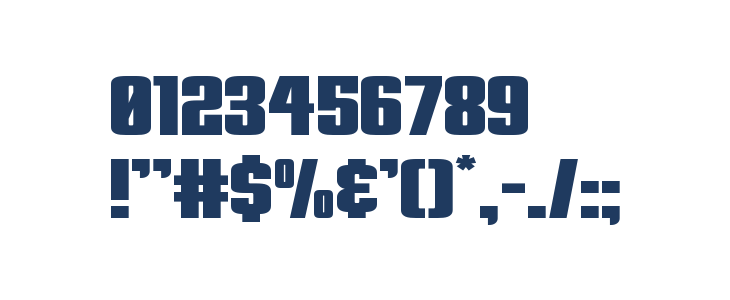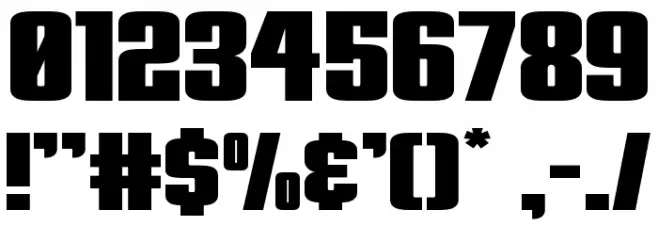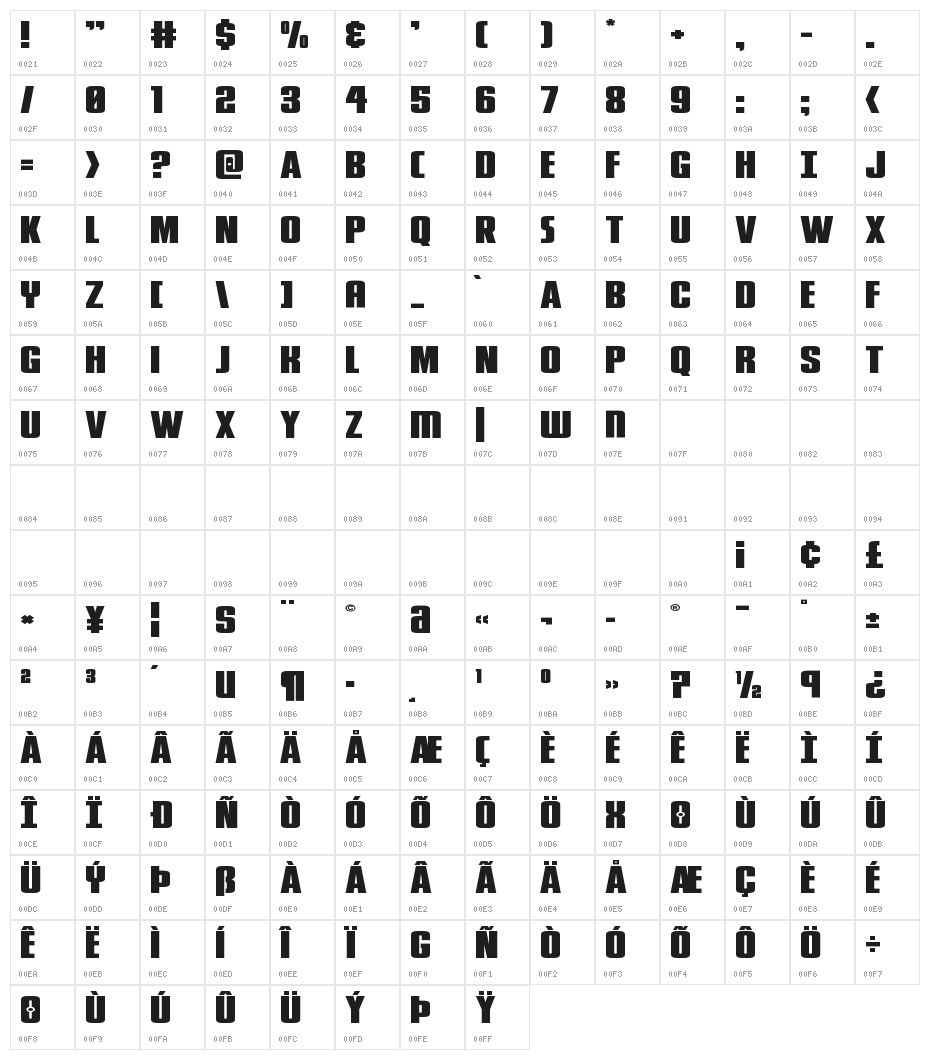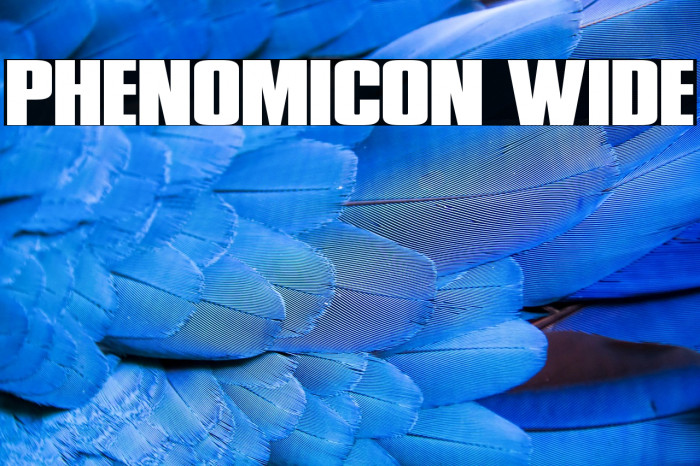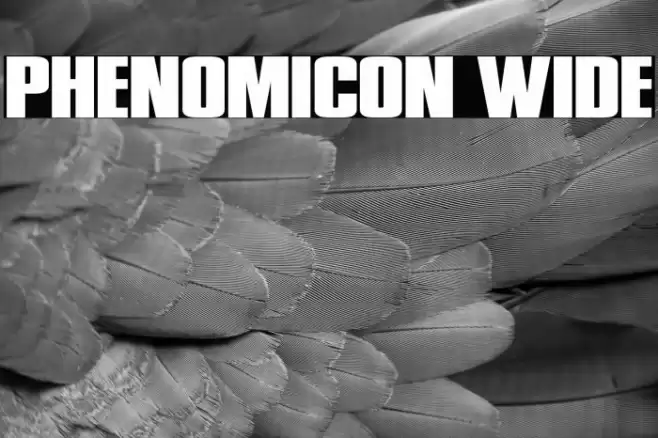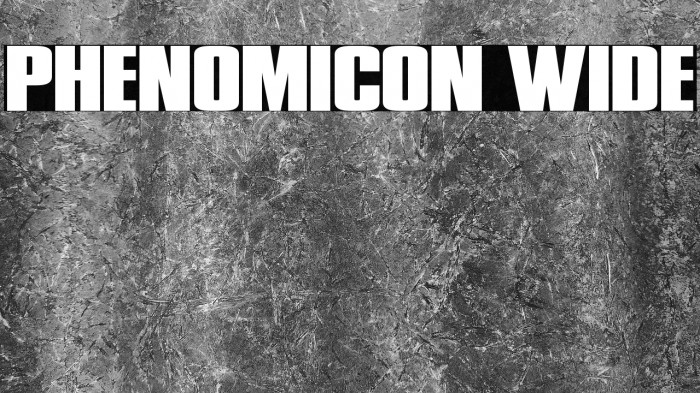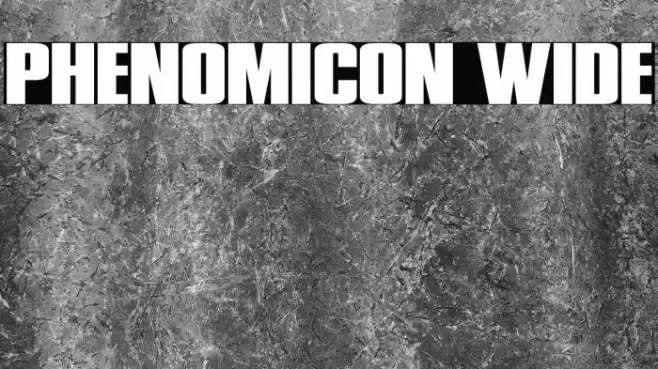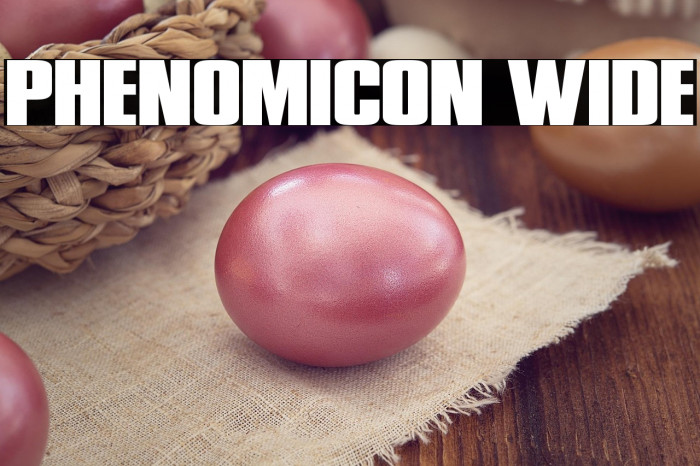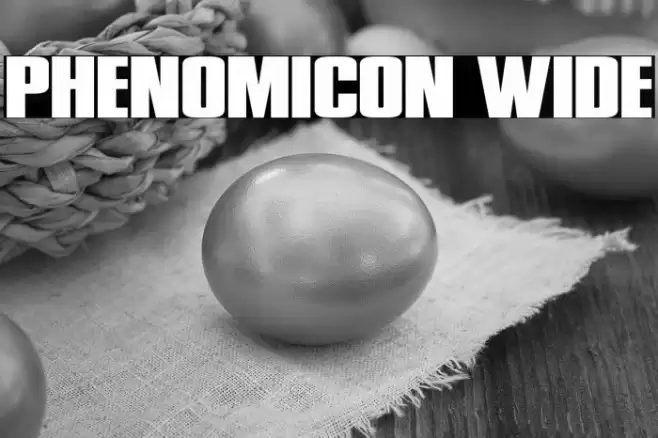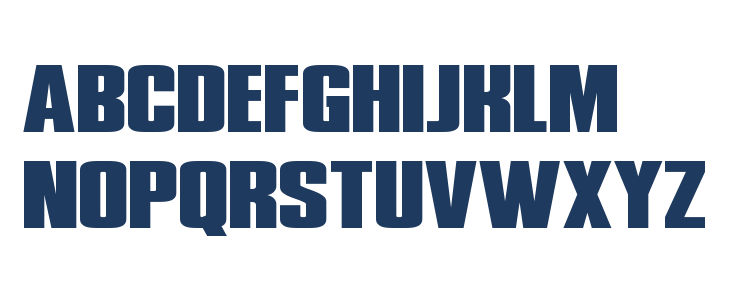
Phenomicon Wide Font
Phenomicon Wide Description
This font is a bold and impactful typeface characterized by its wide, blocky letters. The uppercase and lowercase letters share a uniform thickness, creating a strong visual presence. The numbers and special characters maintain the same boldness, ensuring consistency across all characters. The font's design is straightforward, with minimal decorative elements, focusing on clarity and readability. Its wide stance and heavy weight make it ideal for grabbing attention, making it suitable for headlines and display purposes.
A bold, wide, and impactful typeface perfect for headlines from Regular fonts.
- Font: Phenomicon Wide
- Proposed Projects: Ideal for posters, banners, and any project requiring a strong visual impact.
- Width: Expanded